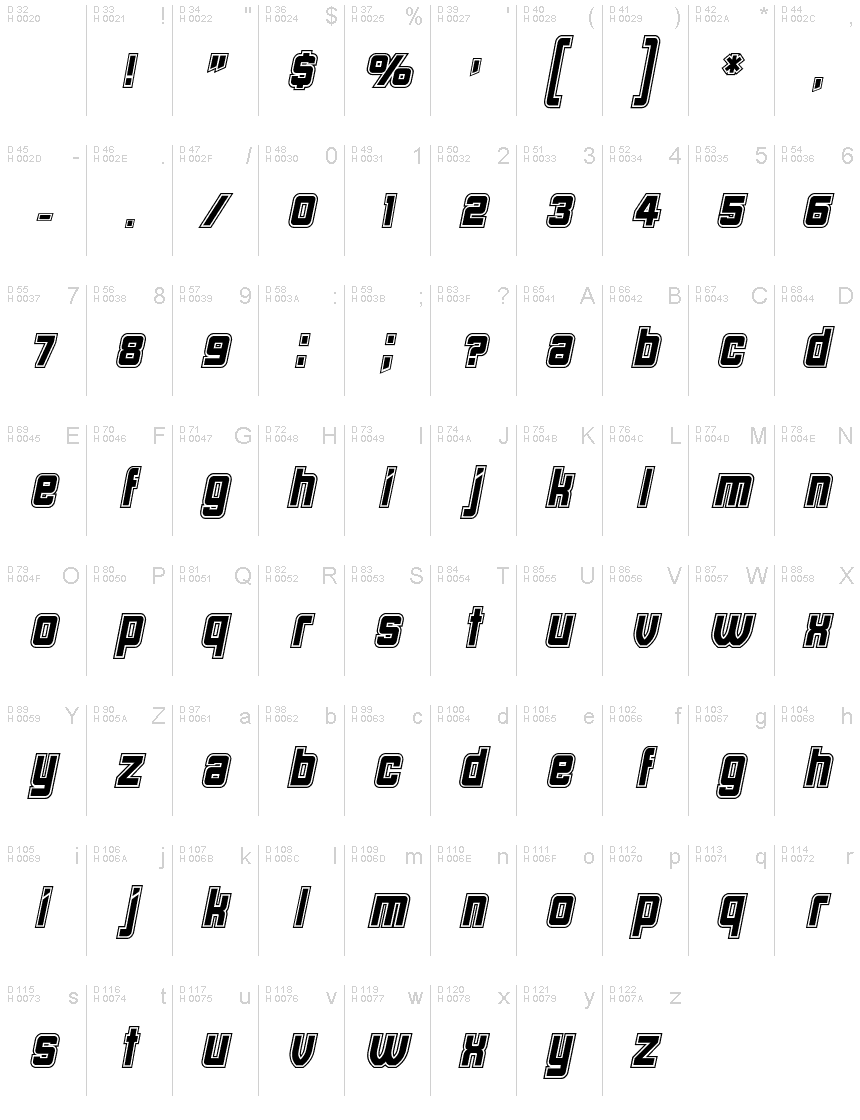
Riviera College
Riviera College is a stunning display font that's perfect for projects that require a strong and confident design. Created by the talented Vladimir Nikolic, this semi-bold typeface boasts an attractive semi-condensed width that makes it ideal for headlines, posters, logos, and branding designs. Whether you're working on a school project or launching a new business website, Riviera College will add an extra touch of sophistication to your work. Its unique shape and style are perfect for showcasing important information and grabbing people's attention with ease. With Riviera College, your designs will truly stand out from the crowd.